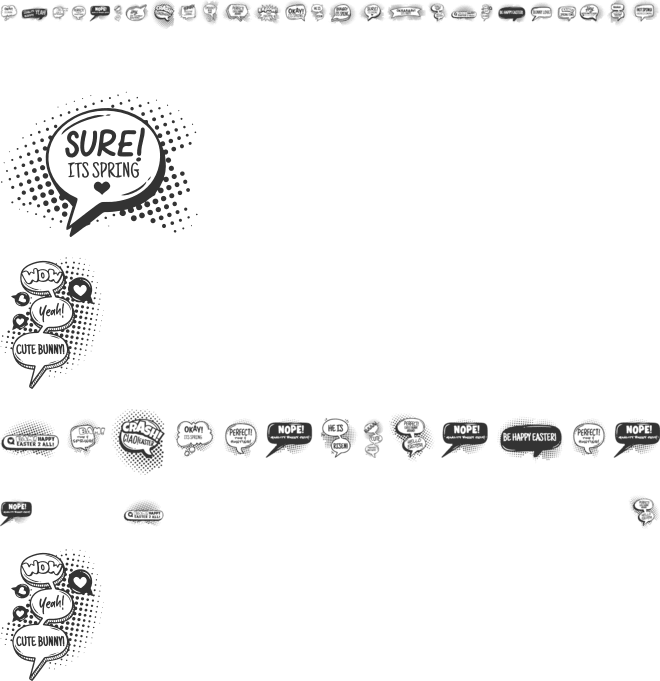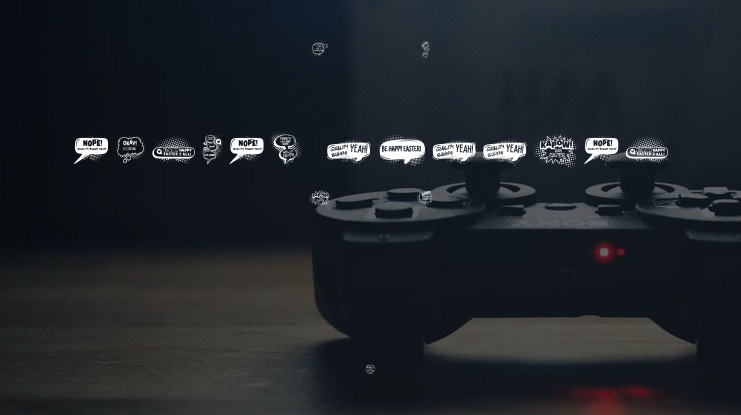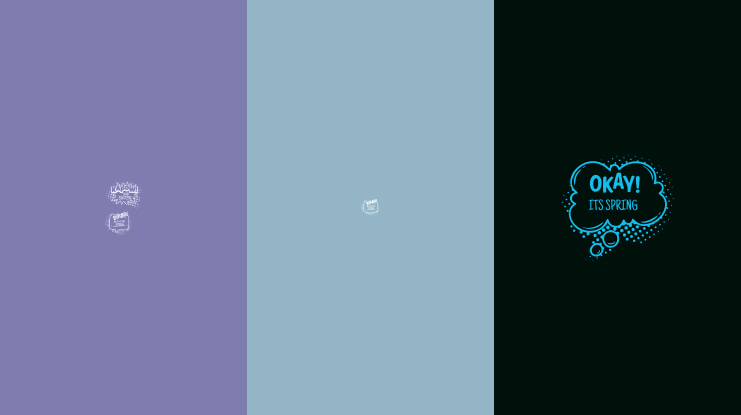
EASTER BUBBLES Font
🎨 Font Name: EASTER BUBBLES by Minimalist Art Studio
🎨 Font Description: Easter Dingbats Typeface is a playful sans serif packed with comic-style phrases and festive energy—perfect for springtime cards, Easter crafts, and seasonal packaging.